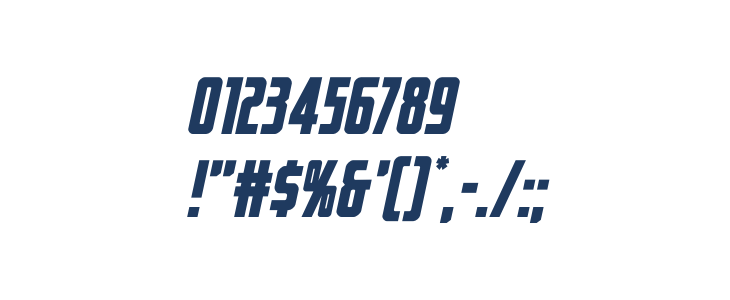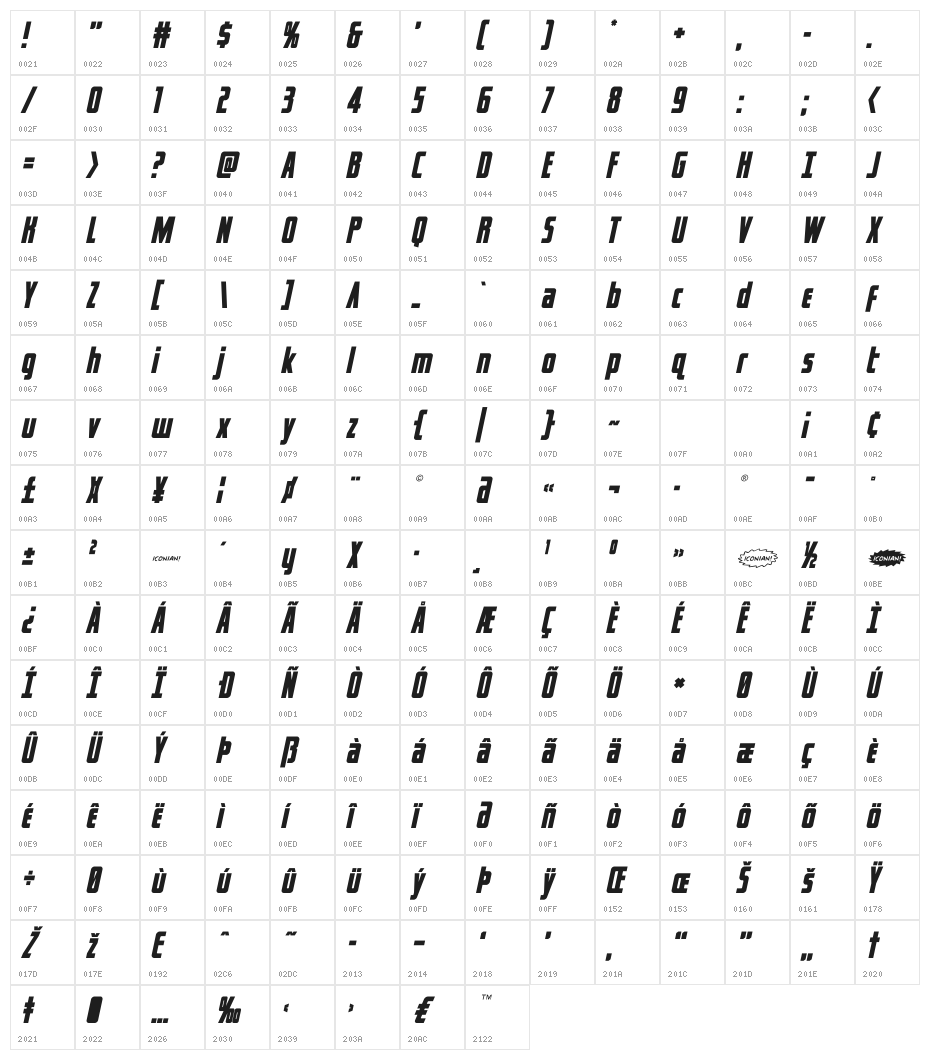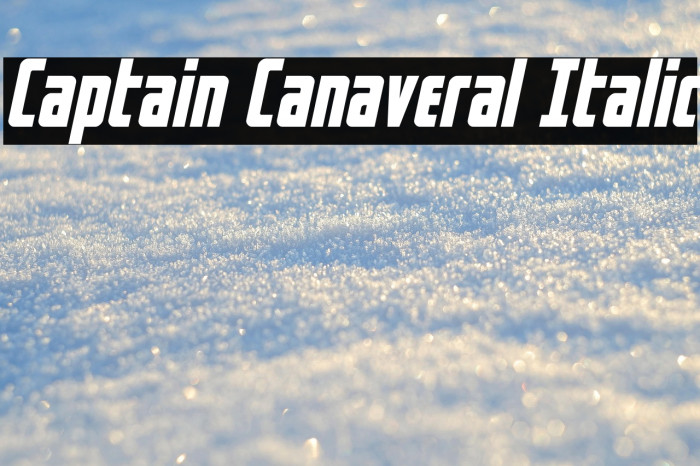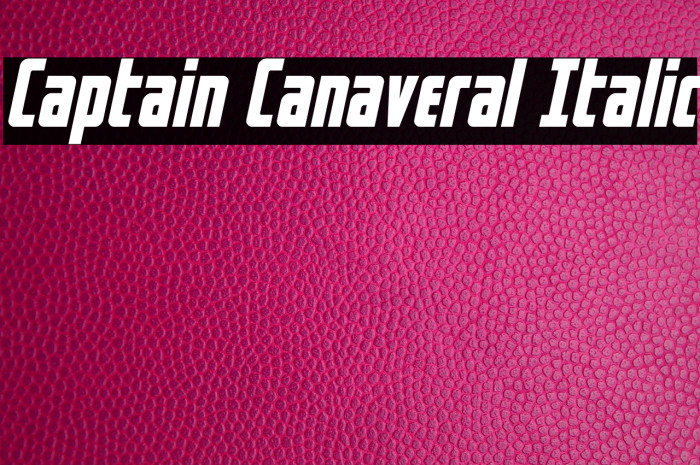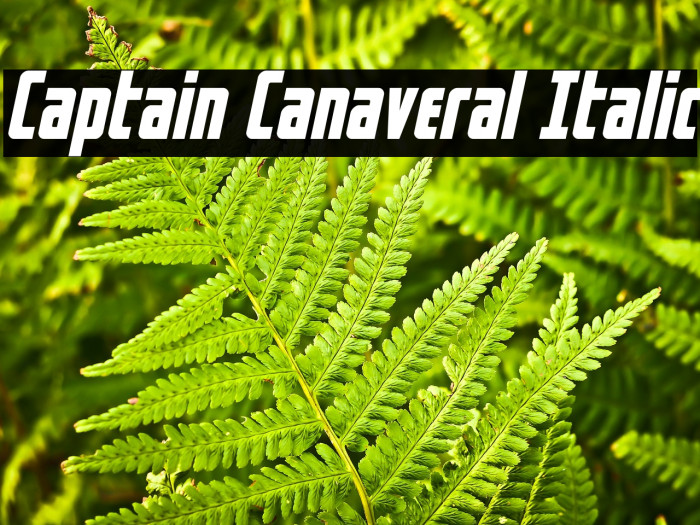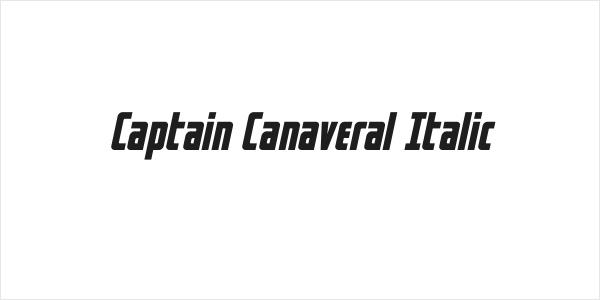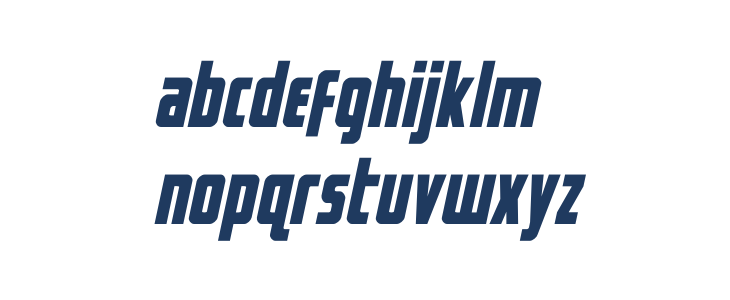
Captain Canaveral Italic Font
Captain Canaveral Italic Description
This font features a bold and dynamic italic style, characterized by its strong, angular lines and slightly condensed letterforms. The uppercase and lowercase letters maintain a consistent slant, giving the typeface a sense of motion and urgency. The numerals and special characters are designed to match the overall aesthetic, with sharp edges and a modern flair. The font's bold weight and italic posture make it ideal for attention-grabbing headlines and impactful designs.